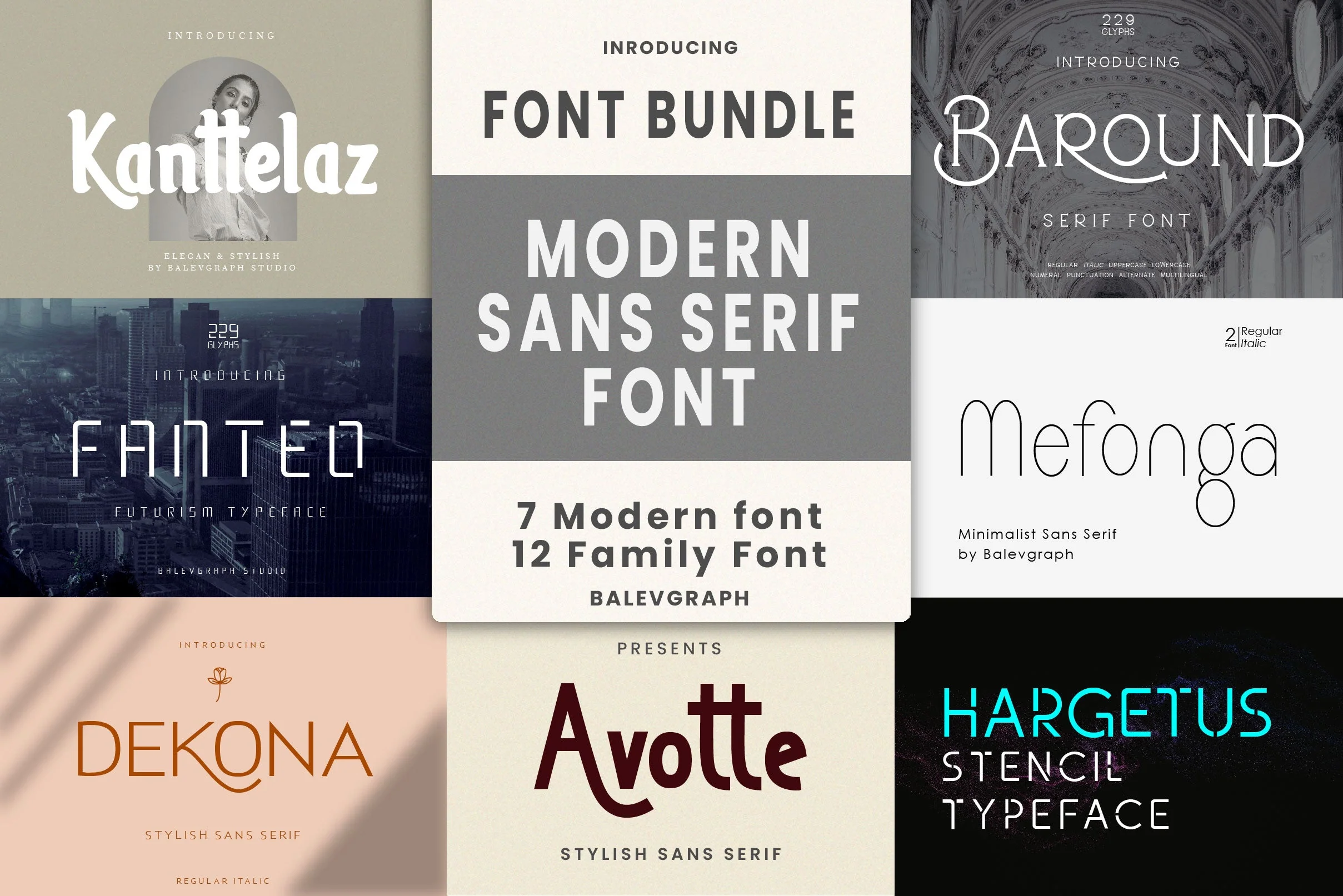
Modern Sans Serif Font Bundle includes 7 fonts 12 family fonts.
The bundle comes with many opentype features such as Alternates, Ligature, Title and Ending Swash, PUA Encode and also support multilingual.
This bundle is perfect for logos, watermarks on photography, branding, advertisement, quotes, invitations, stationery, wedding design, album covers, business cards, clothing, magazines, posters, and more!